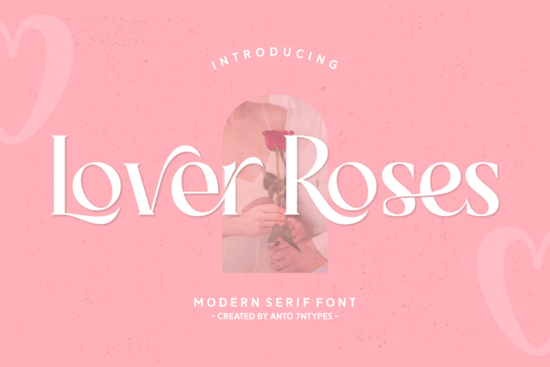
Designers, crafters, and small business owners looking for a font that captures the essence of love and romance will find “Lover Roses” to be a standout choice. This unique typeface blends elegance with a touch of playfulness, making it ideal for a wide range of creative projects. Whether you're designing a greeting card, a logo, or a book cover, Lover Roses brings a sense of warmth and sophistication that’s hard to match.
The font features heart swashes and cultural accents that add a personal, romantic flair to any design. Its clean lines and versatile styles regular and italic with alternates and ligatures make it easy to use across different platforms. The multilingual support ensures that it can be used by creators around the world, adding to its appeal for international projects.
If you're working on a project that requires a touch of charm, Lover Roses is an excellent option. It works well for print and digital media, from packaging designs to social media graphics. The font’s balance of boldness and delicacy makes it perfect for creating eye-catching headlines or adding a soft, romantic feel to your work.
What Makes Lover Roses Stand Out?
Lover Roses isn’t just another font it’s a tool that can elevate your creative expression. Its design is inspired by the beauty of a rose garden, with each character carrying a sense of grace and emotion. This makes it particularly well-suited for projects that aim to convey love, affection, or a sense of nostalgia.
One of the key strengths of this font is its versatility. It can be used in both formal and casual contexts. For example, it works beautifully on a wedding invitation or a birthday card, but it also has the strength to stand out on a T-shirt design or a brand logo. This flexibility means you can use it across multiple projects without repeating the same look.
The font family includes regular and italic styles, giving you more options for how you apply it in your designs. Whether you want a simple, elegant text or something more dynamic, Lover Roses offers the tools to achieve your vision.
How to Use Lover Roses in Your Projects
For those new to typography, Lover Roses is easy to work with. Its clear structure and readable design make it accessible even for beginners. You can use it for headings, body text, or as a decorative element in your layouts. The presence of ligatures and alternates allows for more customized results, which can help your designs stand out.
If you're a print-on-demand seller, this font could be a great addition to your collection. It adds a romantic touch that many customers appreciate, especially for items like mugs, t-shirts, or stationery. For small businesses, using Lover Roses in branding materials can help create a more memorable and emotionally resonant identity.
Photographers and content creators who want to add a poetic feel to their work may also find value in this font. It pairs well with images of nature, love, or heartfelt messages, enhancing the overall mood of a project.
Whether you're a designer, a crafter, or a small business owner, Lover Roses offers a way to express creativity with a touch of love. Its blend of style, functionality, and emotional depth makes it a valuable addition to any toolkit. Try it out and see how it can bring a fresh, romantic energy to your next project.